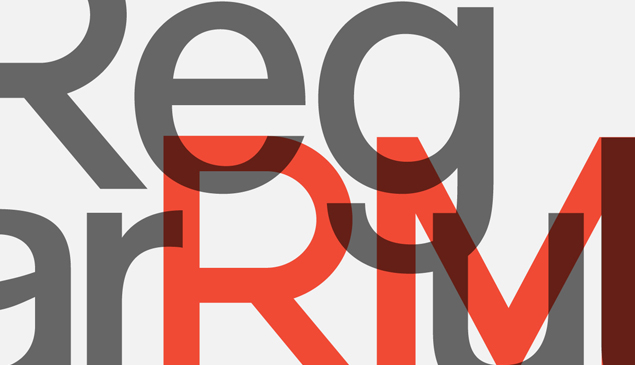
Greatest fonts countdown: 99 - RM Regular
We're counting down the 100 greatest typefaces in existence. Here we present number 99...
FontShop AG, the renowned type foundry, conducted a survey based on historical relevance, sales at FontShop.com, and aesthetic quality. With a few additions from the experts at Creative Bloq and Computer Arts magazine, the best fonts ever were selected for the new book, 100 Best Typefaces Ever.
But without further ado, here's the 99th best typeface ever...
99. RM Regular
- Mash Creative, 2011
For those looking for a simple, clean and legible sans, RM Regular by Essex-based design studio Mash Creative is a solid choice. The OpenType font includes a full character and glyph set, supporting 47 languages. RM Regular started out as part of a rethink for the Royal Mail identity commissioned by ICON magazine in 2010.
"As part of the identity I wanted to create a bespoke font that would remain timeless," says Mash Creative's Mark Bloom. "Designed in just two days from start to finish, the font is essentially a cross between a grotesque and a sans-serif humanist font."